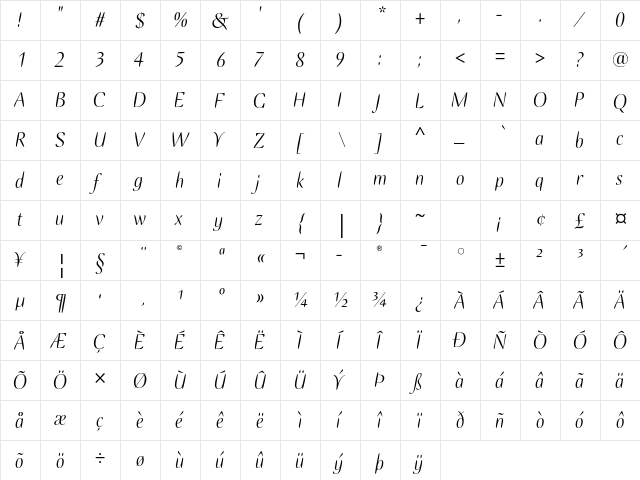
Ellipse ITC Std Italic
| Designer | Jean-Renaud Cuaz |
Design Context for Ellipse ITC Std Typeface
Ellipse ITC Std offers clean, dependable letterforms without strong stylistic allegiance, making it a practical choice for designers who need flexibility. The dynamic lean of this cut emphasises speed and emphasis in any layout.
Pro Tip: Use Ellipse ITC Std for emphasis, pull quotes, and subheadings where its slanted energy can add rhythm to the layout.